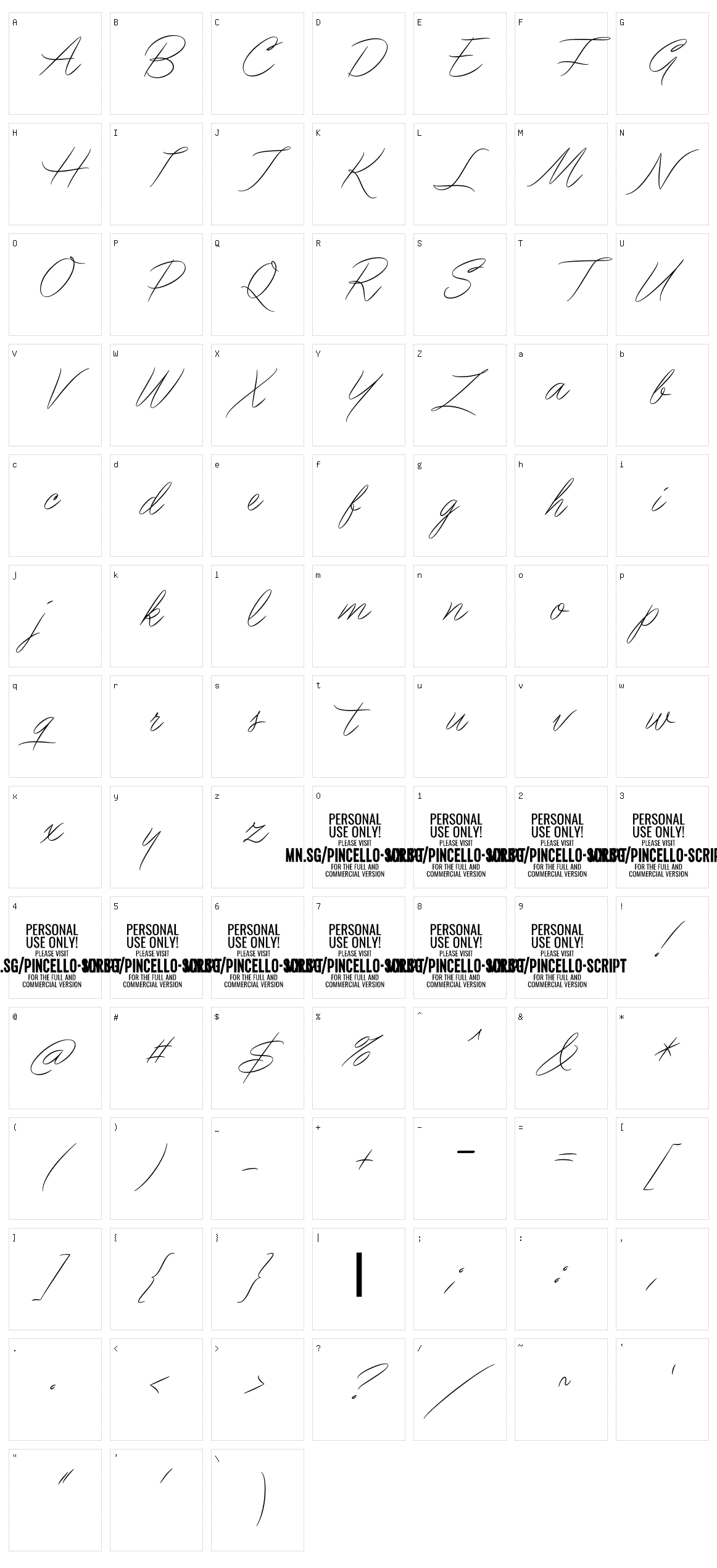
Pincello Script is a calligraphic masterpiece that skillfully blends the art of brush painting and handwriting to create a truly charming and captivating font. Its cursive, painted letterforms bring a touch of elegance and personality to your creative projects, making Pincello Script a perfect choice for invitations, branding, and more.
The Pincello Script font family offers a variety of weights to suit your design needs, including Thin, Light, Regular, Bold, and Black. This diverse range of styles allows you to craft distinctive visual experiences and effortlessly adjust the mood and impact of your creations.
Equipped with advanced OpenType functionality, Pincello Script delivers top-notch quality and ensures full control and customizability. The font includes stylistic alternates, ligatures, and additional features to enhance your designs and make them truly unique.
In addition to its complete support for Latin-based languages, Pincello Script also covers Arabic scripts. Carefully crafted to ensure authenticity and harmony, the font seamlessly incorporates Arabic letterforms, making it a versatile choice for projects that require Middle Eastern compatibility.
Mans Greback is a dedicated Swedish typeface designer who strives to make unique and versatile fonts. With a passion for design and typography, Mans seeks to improve and expand his craft, creating fonts that resonate with designers and audiences alike.